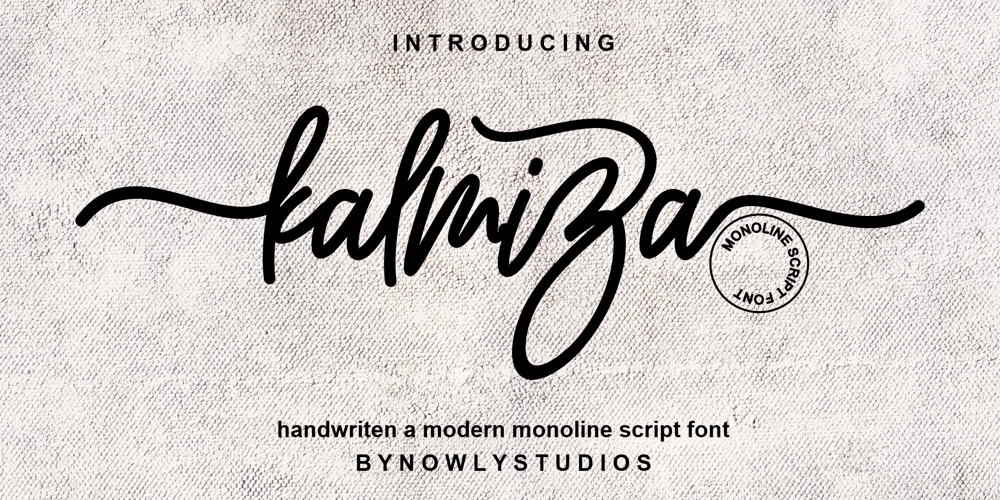
Kalmiza Script Font Family was designed by Irfan Nouli and published by Nowlystudios. Kalmiza Script contains 1 styles and family package options. Kalmiza is a monoline script font with a cursive style, as many characters are smoothly connected.This lovely typeface is great for designers who are seeking a natural and authentic style in their creations! This gorgeous font includes all lowercase and uppercase characters, numbers, punctuation, alternate, an array of standard ligatures, and a selection of international characters as well.This font is PUA encoded which means you can access all of the amazing glyphs and ligatures with ease